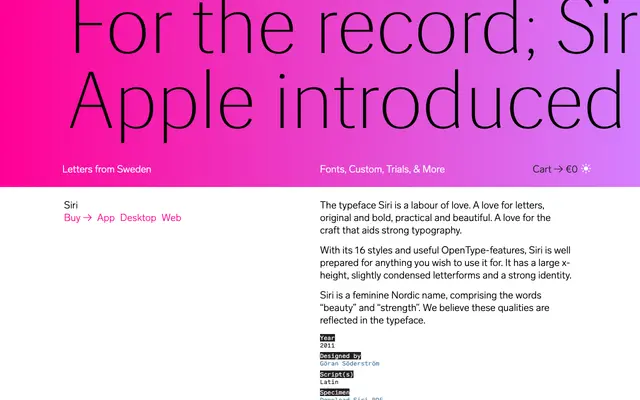
Siri
Letters from Sweden · Göran Söderström · 2011
Siri specimen from Letters from Sweden
A slightly condensed humanist sans by Göran Söderström with 16 styles, a large x-height and broad Latin coverage, released in 2011.
Designed by Göran Söderström and predating Apple's voice assistant by some years, Siri is a workhorse sans with a large x-height and slightly condensed proportions suited to editorial and identity work. The 16-style family spans Thin to Bold with italics and includes a comprehensive extended Latin character set covering most European languages. OpenType features add practical utility across a range of typographic applications.
Siri has a large x-height, slightly condensed letterforms and a strong identity consistent with humanist sans-serif design principles, drawing on Scandinavian typographic sensibility.